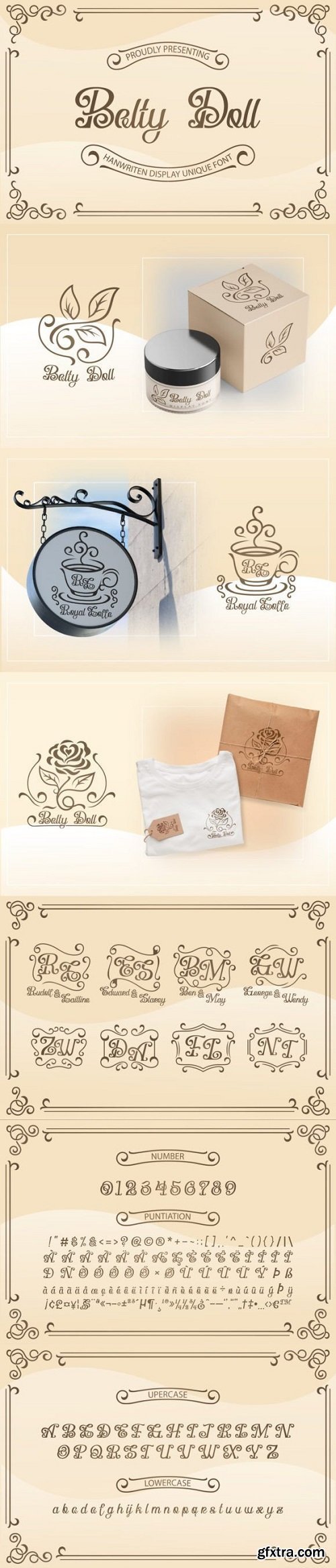
贝蒂娃娃字体
Belty Doll is a Display font with Vintage Art style, Perfect for element designs, weddings, events, t-shirts, logos, badges, stickers and awesome work, etc…